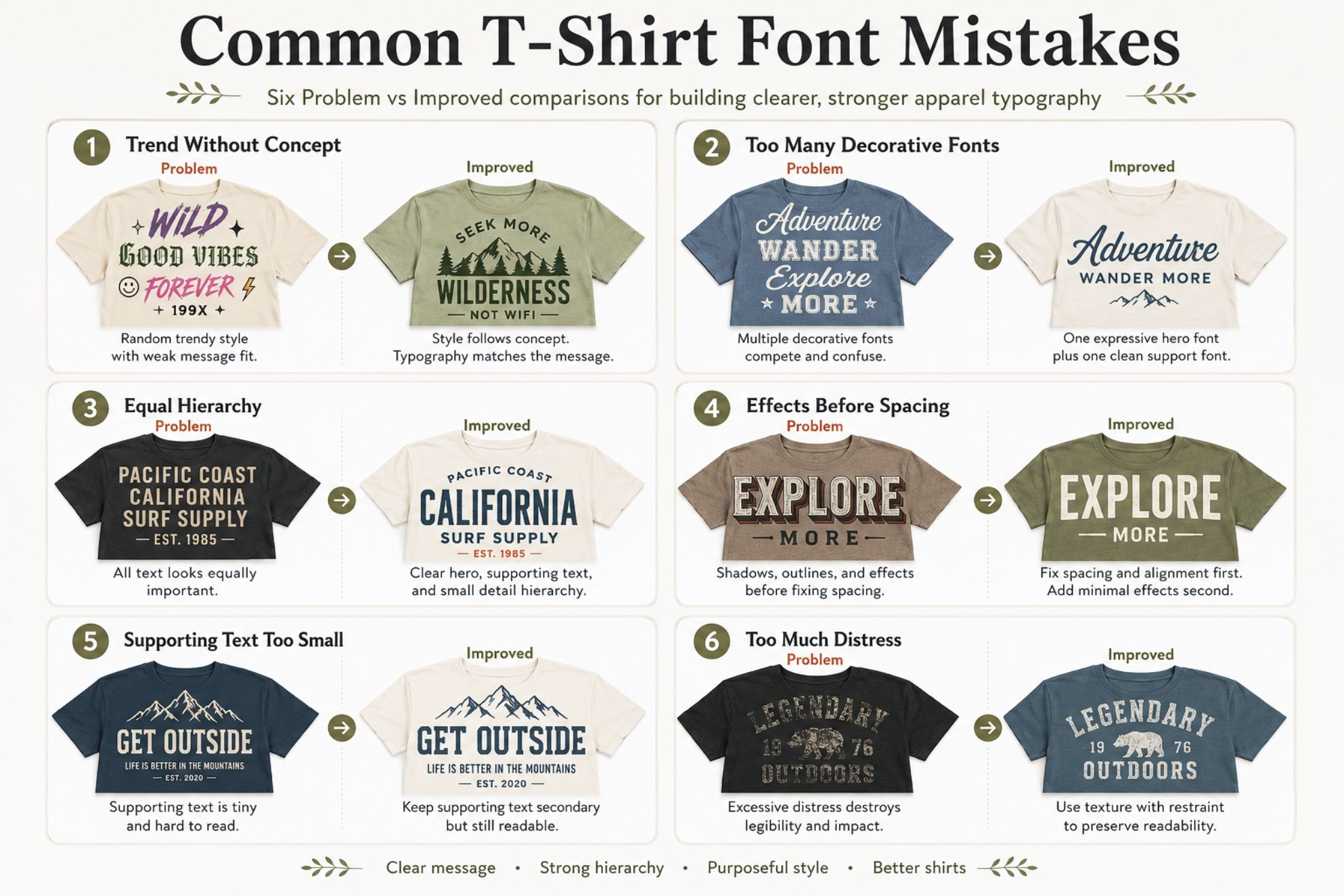
Fonts for T-Shirt Design: Styles That Work for Merch and POD
Choosing fonts for T-shirt design is different from choosing typography for a website, poster, or social media post.
A shirt is not a flat canvas hanging quietly on a wall.
It folds. It stretches. It moves with the person wearing it. People may see the design from across a room, inside a product thumbnail, or while scrolling through dozens of similar products.
That changes how typography needs to work.
A font may look beautiful at 100% zoom but lose its personality when printed. A delicate script may feel elegant on screen but turn into a thin, tangled line on dark fabric. A bold retro font may look exciting by itself but become overwhelming when you add shadows, illustrations, and supporting text.
In this guide, I’ll show you how to choose fonts that can survive the full journey from design file to finished apparel.
You’ll also learn which font styles suit different merch directions, how to build stronger font pairings, and what to check before publishing a print-on-demand product.
Why T-Shirt Typography Needs a Different Approach
Most graphic design is viewed from a predictable position.
A book is held close. A website appears on a screen. A poster usually stays flat.
A T-shirt does none of those things.
Your design needs to work across five different conditions:
1. As a small marketplace thumbnail
2. On a digital garment mockup
3. At the actual print size
4. On fabric with folds and texture
5. On a moving person viewed from different distances
This is why I do not choose apparel fonts based on style alone.
I ask a more practical question:
Will the font keep its character after the design leaves my screen?
The best fonts for T-shirt design are not always the most decorative ones. They are fonts with recognizable shapes, useful weight, controlled detail, and enough flexibility to support different compositions.
Start With the Message, Not the Font Category
It is tempting to begin by browsing bold fonts, vintage fonts, or trendy scripts.
I prefer to start with the message.
Consider these three phrases:
• Take It Slowly
• Built for the Weekend
• No Rules After Midnight
All three could appear on a shirt. But they need different visual voices.
“Take It Slowly” may suit a soft serif or relaxed handwritten font.
“Built for the Weekend” could work with a sturdy slab serif or vintage sign-painter style.
“No Rules After Midnight” may need a condensed sans serif, rough brush font, or angular display face.
Before opening your font library, define three things:
The Emotional Direction
Should the design feel calm, rebellious, funny, nostalgic, sporty, handmade, premium, or playful?
The Intended Customer
A typography style for toddler apparel will not communicate the same way as a style for streetwear, outdoor merchandise, or a boutique fashion brand.
The Reading Speed
Does the customer need to understand the phrase instantly?
Or can the lettering be more expressive and slightly slower to read?
A short fashion statement can support unusual letterforms. A longer slogan usually needs a simpler structure.
Eight Font Styles That Work for T-Shirt Design
There is no single best font for every shirt.
However, certain categories appear repeatedly in effective merch because they balance personality and visibility.
1. Bold Sans Serif Fonts for Direct Statements
Bold sans serif fonts are useful when the words need to do most of the work.
They often have:
• Thick strokes
• Simple letter construction
• Clear counters
• Strong uppercase forms
• Minimal decorative detail
This makes them effective for statements, sports-inspired designs, activist messages, modern branding, and minimal streetwear.
A bold sans serif can also handle distortion, arched layouts, outlines, and stacked compositions without becoming unreadable too quickly.
Best for:
• Statement shirts
• Gym and fitness apparel
• Modern streetwear
• Team merchandise
• Minimal text-based POD products
Watch out for:
A font can be bold without being distinctive.
When the typeface feels too neutral, use spacing, scale, line breaks, or one controlled effect to create a recognizable composition.
2. Condensed Fonts for Tall and Compact Layouts
Condensed fonts are narrower than standard typefaces.
They allow you to fit longer words into a strong vertical space. This is especially useful for centered chest prints and stacked typographic designs.
They can feel:
• Athletic
• Industrial
• Editorial
• Urban
• Energetic
• Retro
Condensed fonts work well when your phrase needs height but has limited horizontal space.
They are also helpful when you want one oversized word to dominate the shirt without extending too far toward the side seams.
Best for:
• Concert merchandise
• Sports themes
• Urban apparel
• Oversized back prints
• Multi-line slogans
Watch out for:
Very narrow counters may close when printed small.
Check letters such as A, B, E, O, P, and R. These often reveal whether a condensed font will remain clear.
3. Chunky Retro Fonts for Friendly Merch
Chunky retro fonts usually feature rounded corners, heavy curves, soft serifs, or exaggerated proportions.
They feel nostalgic without always looking old.
This style can make apparel feel:
• Cheerful
• Relaxed
• Youthful
• Warm
• Casual
• Collectible
You can use chunky retro fonts for positive quotes, lifestyle merch, food-related designs, music themes, and playful small-business collections.
The thick letterforms also give you room to add inline details, shadows, or contrasting outlines.
Best for:
• Seventies-inspired shirts
• Positive phrase designs
• Food and beverage merch
• Creative small businesses
• Colorful POD collections
Watch out for:
Do not add every available retro effect.
A chunky font, warped baseline, thick outline, long shadow, texture, and illustration can quickly become too much.
Choose one main effect. Let the font carry the rest.
4. Vintage Serif Fonts for Heritage and Outdoor Themes
Vintage serif fonts can suggest craftsmanship, tradition, durability, or history.
They often work well for:
• Outdoor brands
• Coffee merch
• Motorcycle themes
• Workwear
• Travel graphics
• Heritage-style clothing
• Local business merchandise
Look for sturdy serifs and open letterforms rather than tiny engraved details.
A vintage serif should still function as a usable type system. It should not depend entirely on texture or decorative swashes.
Best for:
• Heritage apparel
• Adventure shirts
• Brewery or coffee merchandise
• Americana-inspired graphics
• Badge and emblem designs
Watch out for:
The design may feel like a costume if every element looks artificially aged.
Pair the vintage type with clean spacing, a restrained palette, or a modern supporting font.
5. Brush and Marker Fonts for Energy
Brush fonts can make digital artwork feel more physical.
Their irregular edges and changing stroke widths suggest movement, speed, or handmade lettering.
They are useful for:
• Music merchandise
• Skate and surf themes
• Fitness apparel
• Expressive quotes
• Creative events
• Youth-focused collections
Brush lettering often works best for short phrases.
One to four words can feel powerful. A full paragraph usually becomes exhausting to read.
Best for:
• Band shirts
• Action sports
• Bold motivational phrases
• Artistic merchandise
• Casual lifestyle brands
Watch out for:
Small dry-brush details may disappear or print unevenly.
Test both the textured version and a cleaner version. Sometimes the solid version creates a stronger final product.
6. Script Fonts for Short Emotional Accents
Script fonts bring personality, rhythm, and emotion.
They can make a shirt feel romantic, personal, nostalgic, or handmade.
However, script typography requires more control than most font categories.
Use it for:
• One short phrase
• A name
• One emotional keyword
• A small secondary line
• A signature-style accent
Avoid setting every word in an ornate script.
The more connections, loops, and swashes the font has, the more negative space you need around it.
Best for:
• Boutique apparel
• Wedding party shirts
• Feminine lifestyle merch
• Handmade brands
• Sentimental gifts
Watch out for:
Check letter connections before finalizing the design.
Certain combinations can create unwanted shapes or make two letters appear to merge into one.
7. Gothic and Blackletter Fonts for Strong Subculture Signals
Blackletter and gothic fonts have immediate cultural weight.
They can communicate:
• Rebellion
• Tradition
• Heavy music
• Tattoo culture
• Streetwear
• Dark luxury
• Medieval influence
Because the style is already visually intense, it usually works best as a hero font.
Use it for a short name or statement. Pair it with a quiet sans serif for dates, locations, or smaller supporting text.
Best for:
• Band merchandise
• Streetwear
• Tattoo-inspired apparel
• Dark fashion
• Festival graphics
Watch out for:
Some letterforms may be unfamiliar to a broad audience.
Test the design with someone who has not seen the phrase before. Ask what they read, not whether they like the font.
8. Handwritten Fonts for Personal and Casual Designs
Handwritten fonts feel less polished than scripts and more conversational.
They may resemble pencil, pen, chalk, marker, or casual printed handwriting.
This makes them useful when the message should feel direct and human.
Best for:
• Small business merch
• Family shirts
• Kids’ apparel
• Creative quotes
• Handmade product branding
• Casual event shirts
Watch out for:
Too much irregularity can make a design feel accidental.
A handwritten font still needs clear spacing, deliberate alignment, and enough visual structure around it.
Fonts For T Shirt Design Styles That Work For Merch And Pod Eight Font Styles For T Shirt Design
Choose Fonts by Viewing Distance
One of the most useful apparel typography tests is what I call the distance ladder.
Instead of evaluating the design at only one size, review it at three levels.
Level One: Marketplace Thumbnail
Reduce the mockup until it is similar to the size customers will see on Etsy, Amazon, your website, or a POD marketplace.
Ask:
• Can you identify the main word?
• Is the composition clear?
• Does the design have a recognizable silhouette?
• Is the text competing with the garment mockup?
The customer may not read every word at this stage. But the design should create enough visual interest to earn a closer look.
Level Two: Conversation Distance
Imagine seeing the shirt from several feet away.
The main phrase should remain understandable. Thin outlines, tiny supporting text, and delicate punctuation may already begin to disappear.
Level Three: Close Inspection
At close range, smaller details become visible.
This is where texture, dates, small labels, and secondary messages can reward the viewer.
The mistake is trying to make every element function at all three distances.
Instead, give each element a role:
• Hero text creates impact from a distance.
• Supporting text adds context.
• Small details reward close viewing.
Fonts For T Shirt Design Styles That Work For Merch And Pod T Shirt Typography Distance Ladder
Build a Three-Role T-Shirt Typography System
A strong shirt design does not always need multiple fonts.
It does need hierarchy.
I recommend assigning three possible roles.
Hero Text
This is the phrase or word people notice first.
It should have the strongest scale, weight, or personality.
Examples:
• WANDER
• SLOW DAYS
• LOCAL LEGEND
• STAY CURIOUS
Supporting Text
This adds meaning without competing with the hero.
Examples:
• Built for quiet weekends
• Since 1986
• Take the longer road
• Independent creative club
The supporting text is usually simpler, smaller, and less decorative.
Utility Text
Utility text includes small information such as:
• City names
• Coordinates
• Dates
• Collection names
• Edition numbers
• Tiny labels
Not every design needs utility text.
Use it when it strengthens the concept. Do not add tiny text simply because the layout feels empty.
Your design can be complete with one strong phrase.
Font Pairing Ideas for T-Shirt Designs
Most shirt designs need one or two fonts.
Three can work, but only when every typeface has a clear role.
For a deeper look at choosing complementary typefaces, see my guide to font pairing ideas for clean and professional designs.
Here are several combinations that work particularly well for apparel.
Chunky Retro Font + Clean Sans Serif
Use the retro font for the main phrase.
Use the sans serif for a date, location, or small supporting line.
This creates personality without losing structure.
Condensed Sans Serif + Wide-Spaced Sans Serif
The condensed font adds vertical force.
A smaller sans serif with generous letter spacing creates contrast and breathing room.
This combination works well for sports, events, and urban apparel.
Sign-Painter Script + Sturdy Serif
The script creates movement.
The serif gives the composition a grounded, heritage-inspired foundation.
Try this for food, coffee, automotive, and outdoor merchandise.
Gothic Font + Neutral Sans Serif
Use blackletter for one short word or name.
Keep all secondary details simple.
The contrast makes the gothic lettering feel intentional instead of chaotic.
Handwritten Font + Bold Sans Serif
The bold font delivers the main message.
The handwriting adds a personal note.
This pairing works well for encouraging quotes, small business merch, and creative lifestyle designs.
One Font Family in Multiple Weights
This is often the safest solution.
Use the bold or black weight for the hero message. Use regular or medium for supporting information.
The design stays cohesive while still creating hierarchy.
Fonts For T Shirt Design Styles That Work For Merch And Pod Three Role Apparel Typography System 1
Match the Font to the Print Method
The same typography can behave differently depending on how it is produced.
Always review the requirements of your printer or POD provider before creating the final file.
Direct-to-Garment Printing
Direct-to-garment printing, commonly called DTG, can reproduce detailed and multicolored artwork. However, fabric choice, transparency, resolution, and color preparation still affect the result.
Printful recommends using transparent PNG files for DTG artwork, preparing files in the sRGB color space, and checking the individual file guidelines for each product. It also notes that seams, ribbing, fabric blends, and garment construction can change how the artwork appears.
For the latest technical requirements, review Printful’s official guide to creating a DTG print file.
Typography tips for DTG:
• Avoid extremely faint texture.
• Check thin internal lines.
• Review transparency carefully.
• Test light ink on dark fabric.
• Order a physical sample before launching a major collection.
Direct-to-Film Printing
Direct-to-film, or DTF, can produce strong color and defined edges on different garment types.
Bold text, small outlines, and colorful graphic typography can work well. However, large solid areas may create a heavier print feel.
Keep the composition visually strong without turning the entire chest area into one dense block.
Screen Printing
Screen printing is a natural match for simple, high-impact typography.
It works especially well with:
• Solid shapes
• Limited colors
• Bold strokes
• Clean separations
• Simple shadows
• Strong one-color designs
Very fine details may be difficult to reproduce consistently, depending on the printer, mesh, ink, and garment.
Ask your printer about minimum line thickness and separation requirements.
Embroidery
Typography for embroidery usually needs greater simplification.
Fine serifs, tiny counters, rough textures, and thin scripts can become difficult to stitch clearly.
Choose fonts with:
• Open counters
• Simple shapes
• Moderate spacing
• Strong strokes
• Limited tiny details
Do not assume a design prepared for DTG can be sent directly to an embroidery machine. It will normally need professional digitizing and stitch-based adjustments.
Fonts For T Shirt Design Styles That Work For Merch And Pod Font Pairing Ideas For Apparel
Use Fabric Color as Part of the Typography
The shirt is not simply a background.
It is one of the design colors.
A black shirt creates a different typographic result from cream, heather gray, faded blue, or bright orange.
Before finalizing your font treatment, test it across realistic garment colors.
On Dark Garments
Light typography creates immediate contrast.
However, narrow white strokes may feel harsher than expected. Slightly thicker letterforms often print more confidently.
On Light Garments
Dark ink is usually easy to read, but the design can still feel weak when the font is too thin or the color is too close to the fabric.
On Heather or Textured Fabrics
The fabric texture can visually mix with distressed lettering.
A clean font may become more effective than an already rough typeface.
On Bright Garments
Your typography needs enough contrast to compete with the shirt color.
Do not rely only on hue. Compare the lightness and darkness of the ink and fabric as well.
A useful test is to convert the mockup to grayscale.
When the phrase disappears, the color contrast may not be strong enough.
Think in Collections, Not Isolated Shirts
One successful shirt can sell.
A coordinated collection can build recognition.
Instead of choosing a completely different font for every design, create a small apparel typography system.
For example:
Hero Font
A chunky retro serif used across the main phrases.
Support Font
A clean condensed sans serif used for locations, dates, and collection names.
Accent Treatment
A consistent underline, arch, star, badge, or small handwritten word.
Then vary the composition:
• One oversized word
• A stacked phrase
• A circular badge
• A small left-chest design
• A large back print
• A short statement with illustration
The collection will feel connected without repeating the exact same layout.
This also makes product thumbnails look stronger when several items appear together in your shop.
Fonts For T Shirt Design Styles That Work For Merch And Pod Typography By Print Method
Evaluate the Whole Typeface Before Buying It
A beautiful promotional word does not prove that a font will work for merchandise.
Test the actual phrases you plan to use.
I recommend checking:
• Uppercase letters
• Lowercase letters
• Numbers
• Punctuation
• Common letter pairs
• Alternate characters
• Ligatures
• Multilingual support
• Thin and thick weights
• Clean and textured versions
Pay special attention to repeated letters.
A phrase such as “GOOD MOOD” can expose whether identical letters make the typography feel too mechanical. Stylistic alternates may help create more natural variation.
Also test difficult combinations such as:
• AV
• WA
• TT
• LL
• OO
• ST
• RA
• TH
Do not purchase a font only because its preview contains one impressive word.
The font needs to support a complete design system.
Check the Font License Before Selling Merch
A font being downloadable does not automatically mean you may use it on products for sale.
Before publishing a shirt, confirm that the license covers:
• Commercial use
• Physical merchandise
• Print-on-demand production
• Client work, when relevant
• The expected production volume
• Use by contractors or team members
• Editable templates, when applicable
Google states that fonts in the Google Fonts collection are released under open-source licenses and may be used in commercial and non-commercial projects. You should still review the license provided with the specific font, particularly when distributing or modifying font software.
Adobe also allows Adobe Fonts to be used in commercial merchandise, including T-shirts. However, customers cannot use those fonts dynamically to type their own personalized text without the appropriate licensing arrangement, and collaborators who need direct access to the font may require their own license.
You can review the official Adobe Fonts licensing FAQ for more detail.
When using a font from an independent designer or marketplace, read that seller’s license rather than assuming all commercial licenses work the same way.
Common T-Shirt Font Mistakes
Choosing a Font Only Because It Is Trending
A trendy font can bring quick familiarity.
It can also make your product blend into hundreds of similar listings.
Look for a style that fits the message first. Trends should support the concept, not replace it.
Using Too Many Decorative Fonts
Two expressive fonts usually compete.
Let one font create personality. Let the other provide clarity.
Making Every Line Equally Important
When every line has the same scale and weight, the viewer has no clear starting point.
Choose one hero phrase.
Reduce everything else.
Adding Effects Before Fixing the Typography
Shadows, outlines, textures, and warps cannot rescue weak spacing.
Start with plain black text.
Fix the hierarchy, line breaks, kerning, and scale first.
Ignoring the Actual Garment
A design may look balanced on a square artboard but awkward on a shirt.
Consider the neckline, chest width, side seams, pockets, and natural folds.
Making Supporting Text Too Small
Tiny text may look sophisticated on screen and disappear in production.
Print the design at actual size before uploading it.
Using Distress Without Considering Fabric
A rough texture placed on a heather shirt can lose too much information.
Let either the font or the fabric provide texture. You do not always need both.
Fonts For T Shirt Design Styles That Work For Merch And Pod Coordinated T Shirt Typography Collection
My Practical T-Shirt Font Test
Before approving a font, I use a simple sequence.
1. Type the Real Phrase
Do not test only “Vintage,” “Summer,” or another polished sample word.
Use your exact product text.
2. Remove All Effects
Set the typography in one solid color.
If it already feels strong, you have a good foundation.
3. Test It in Black and White
This reveals the real shape and hierarchy.
4. Reduce It to Thumbnail Size
Check whether the main message still has a clear silhouette.
5. Print It at Actual Size
A home printer is enough for an early test.
Place the paper against a shirt and review it from different distances.
6. Bend and Fold the Test
The goal is not to simulate fabric perfectly. It is to see whether important words depend on a completely flat surface.
7. Place It on Several Garment Colors
Test dark, light, neutral, and heather versions.
8. Check the License
Confirm merchandise and commercial production rights.
9. Order a Physical Sample
A digital mockup cannot show every difference in ink, fabric, scale, and texture.
10. Simplify Once More
Remove one detail.
When the design becomes weaker, put it back. When it becomes clearer, leave it out.
Fonts For T Shirt Design Styles That Work For Merch And Pod Common T Shirt Font Mistakes
Frequently Asked Questions
What fonts are best for T-shirt design?
Bold sans serifs, chunky retro fonts, vintage serifs, condensed fonts, brush lettering, and simple scripts can all work well.
The best choice depends on the audience, message, garment, and print method.
Prioritize clear shapes and useful weight over decoration alone.
Should I use uppercase or lowercase text?
Uppercase text usually creates a stronger block shape and can be easier to read from a distance.
Lowercase text can feel softer, more personal, or more conversational.
You can also combine them. Use uppercase for the hero phrase and lowercase for supporting text.
How many fonts should a shirt design use?
One or two fonts are enough for most designs.
A third font can work as a small accent, but it should have a clear role.
When the composition already contains illustrations, badges, shadows, or textures, using fewer fonts is usually better.
Can I use free fonts on shirts I sell?
Yes, but only when the font license permits commercial merchandise use.
“Free download” may mean free for personal projects only.
Always read the included license or obtain written confirmation from the font creator.
Are script fonts suitable for POD shirts?
Yes, especially for short emotional phrases, names, and accent words.
Choose scripts with clear connections, sufficient stroke weight, and controlled swashes. Test them at actual print size before selling the product.
Do I need to convert fonts to outlines?
Converting text to outlines can prevent font substitution when sending vector artwork to a printer.
Keep an editable master file with live text before converting it.
For raster export workflows, follow the file format and resolution requirements of your POD provider.
What is the safest font pairing for apparel?
A display font paired with a clean sans serif is one of the most flexible combinations.
The display font creates personality. The sans serif handles supporting information.
You can find more combinations in the HansCo Studio Font Pairing Ideas guide.
Final Thoughts
The strongest fonts for T-shirt design do more than look attractive on an artboard.
They remain recognizable inside a thumbnail.
They stay readable on a moving body.
They work with the fabric rather than fighting it.
They also support enough variation to become part of a full merch collection.
Start with the message. Define the audience. Give every text element a role. Then test the typography at real size, on realistic garment colors, and through the production method you plan to use.